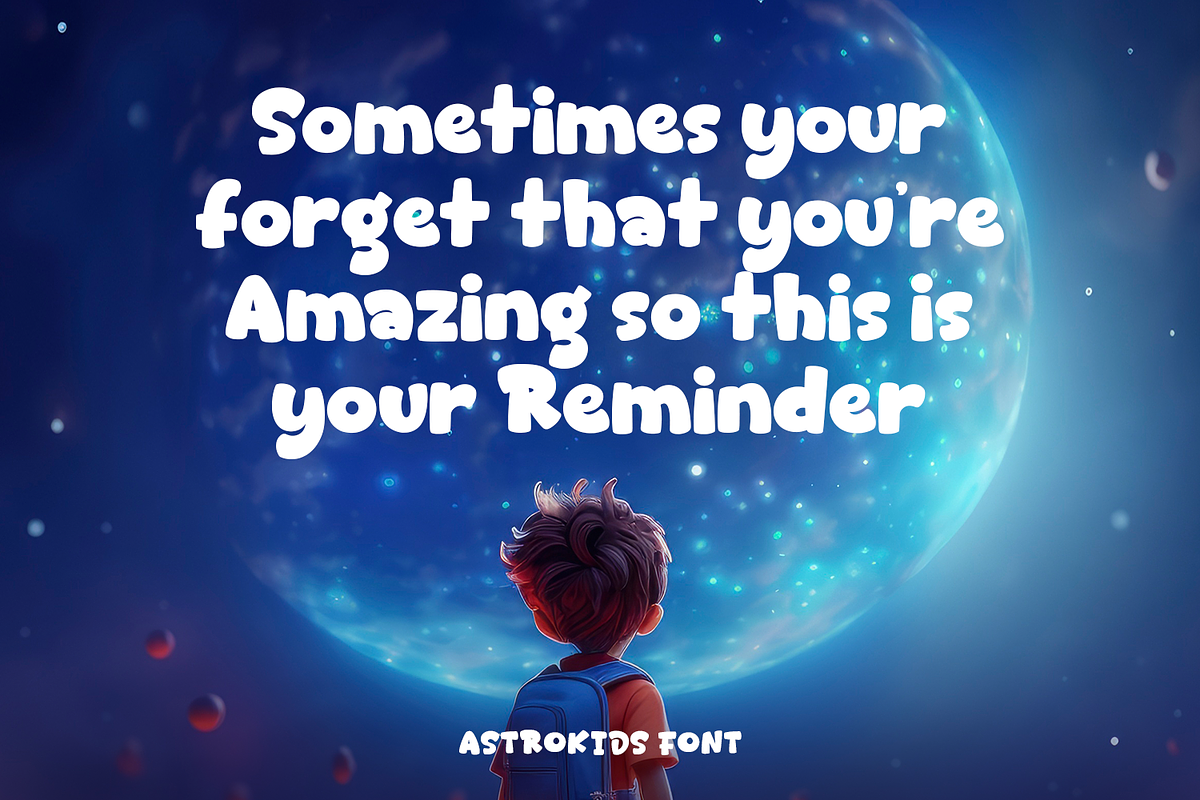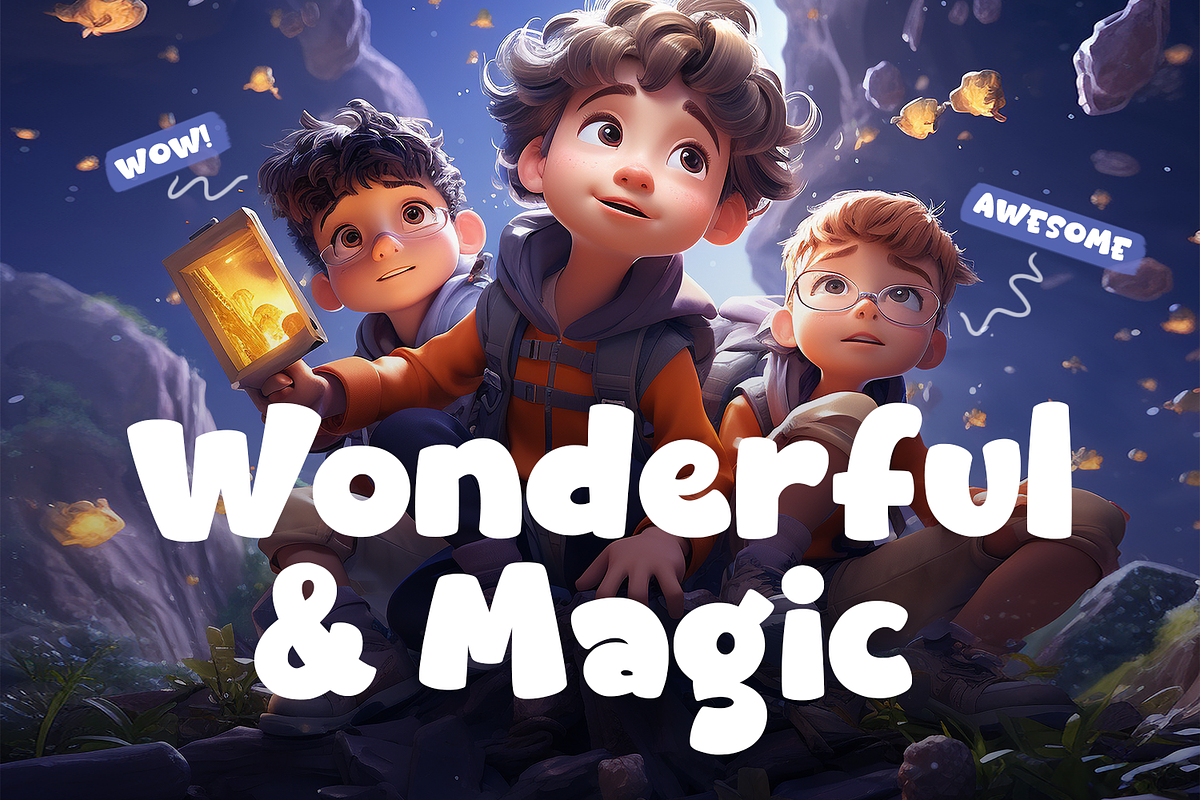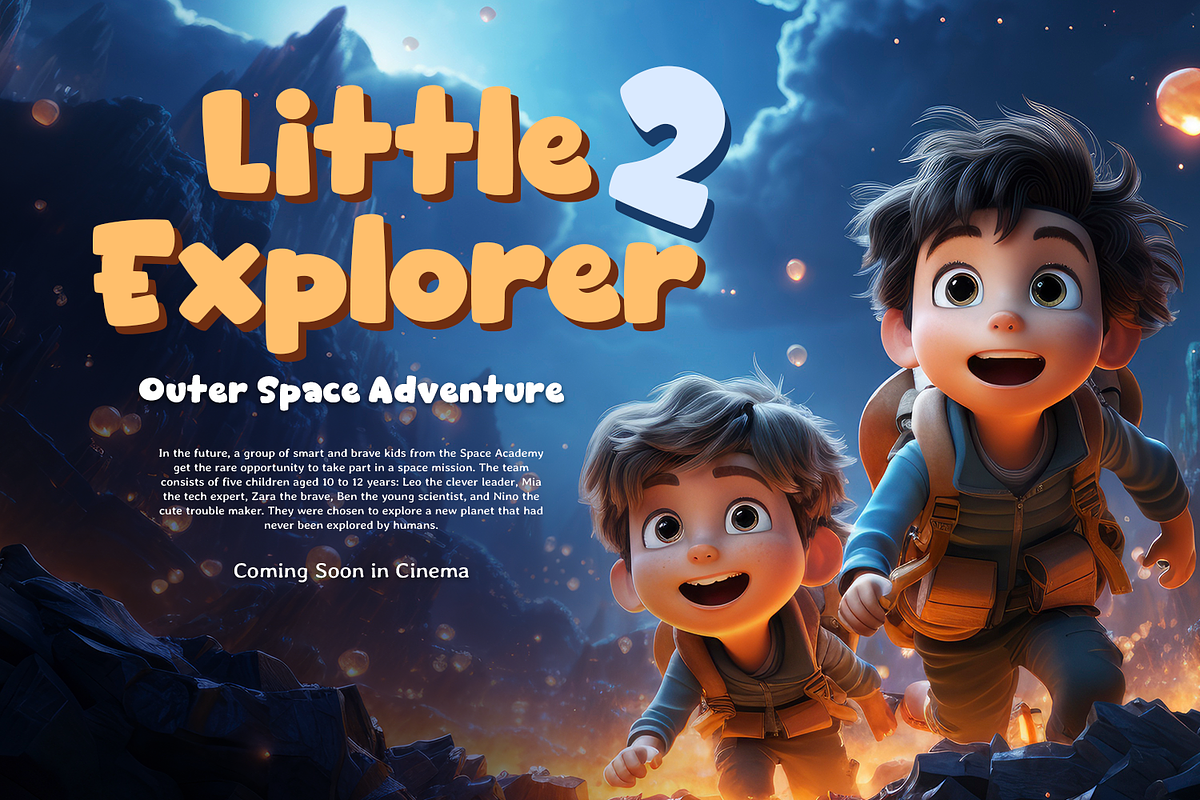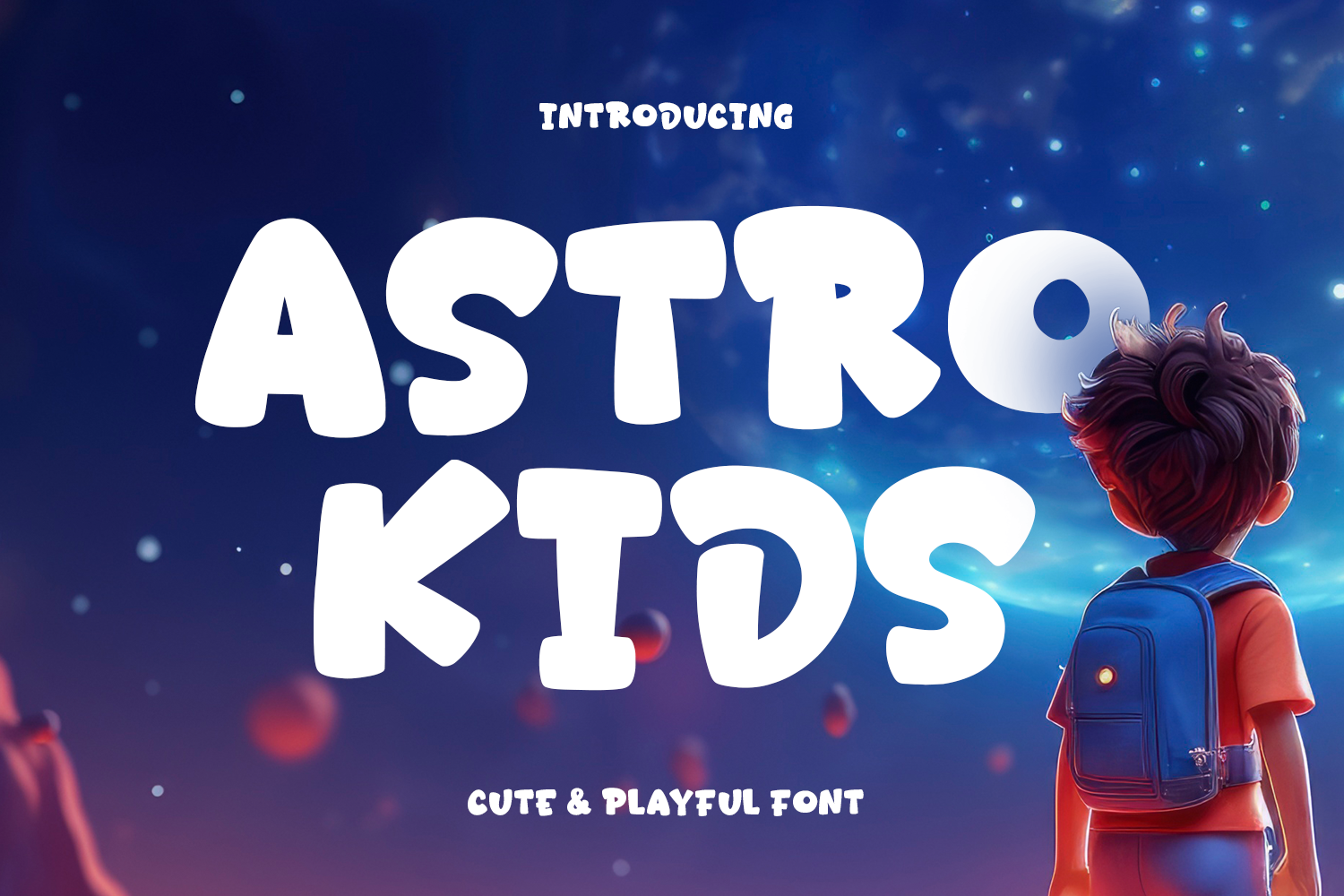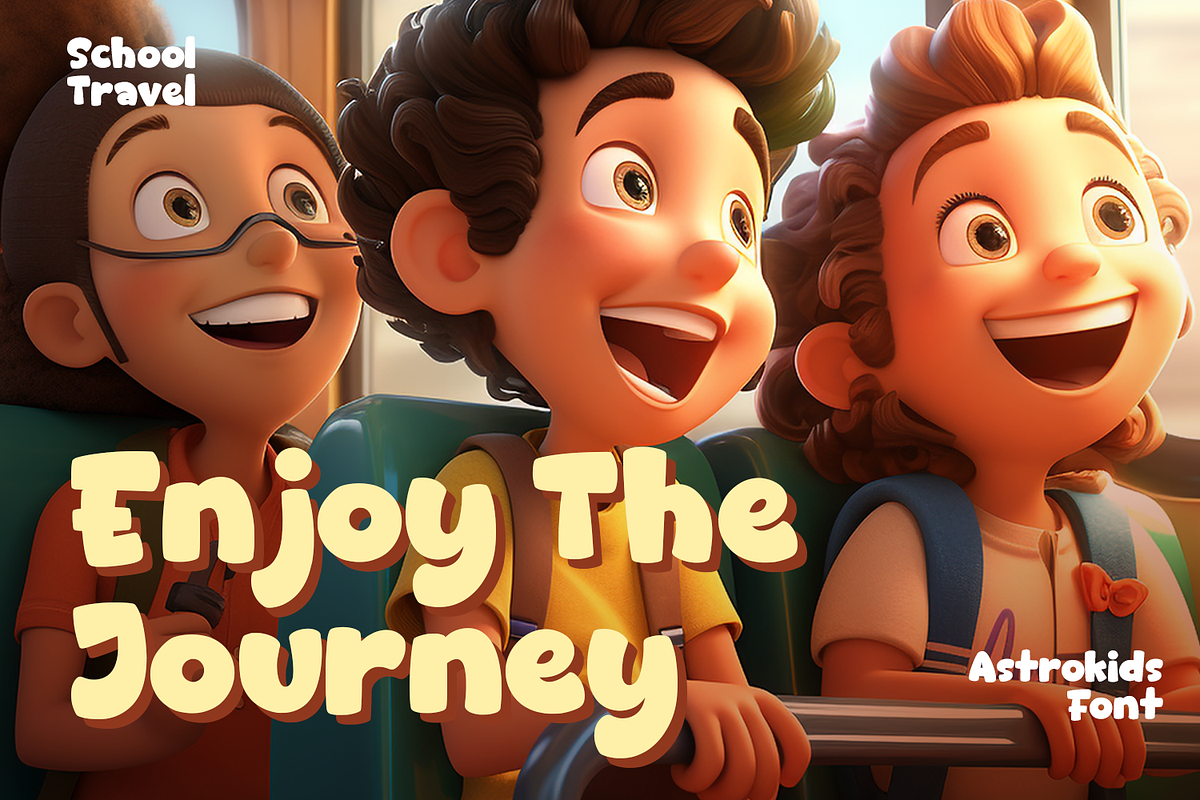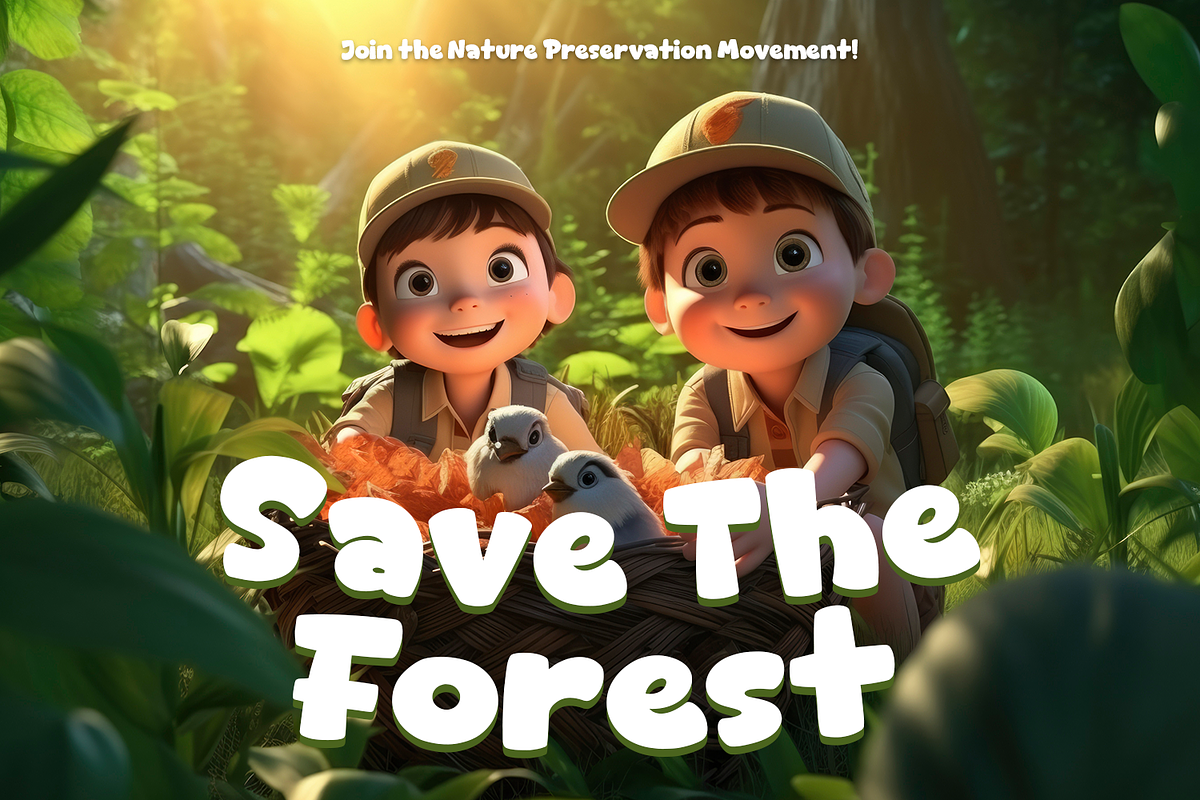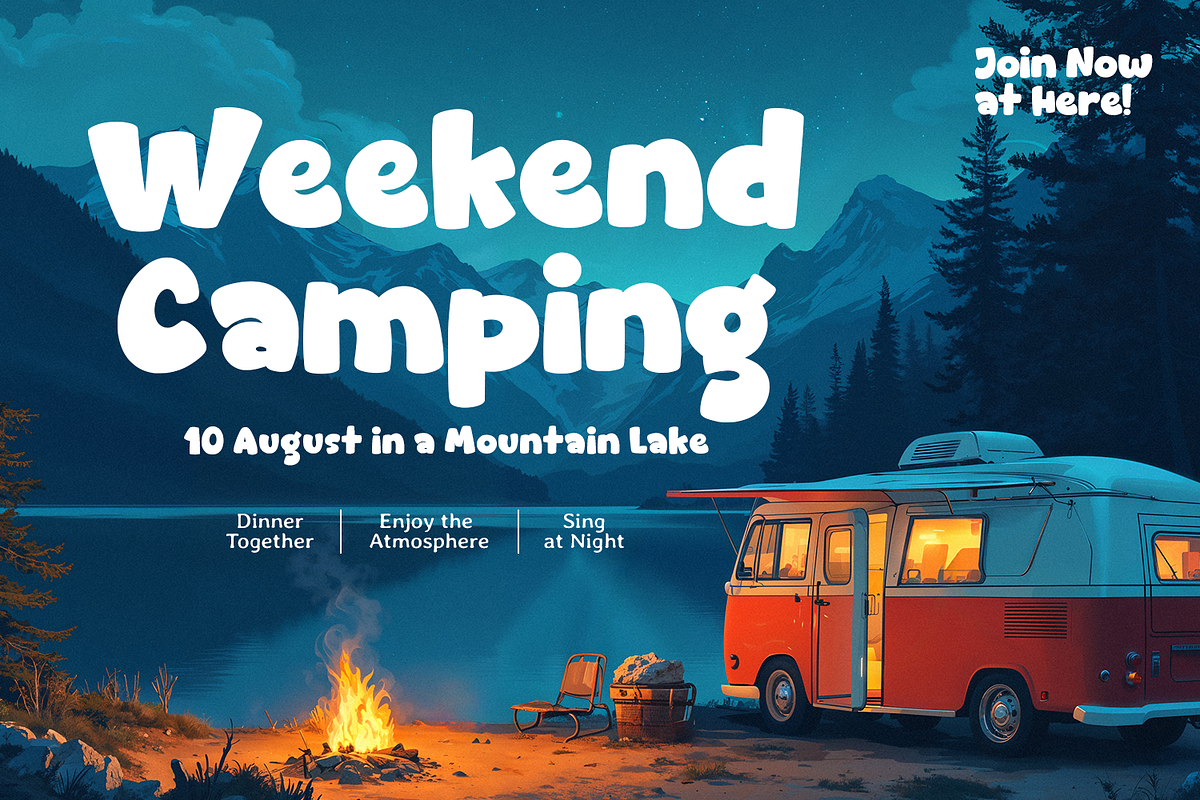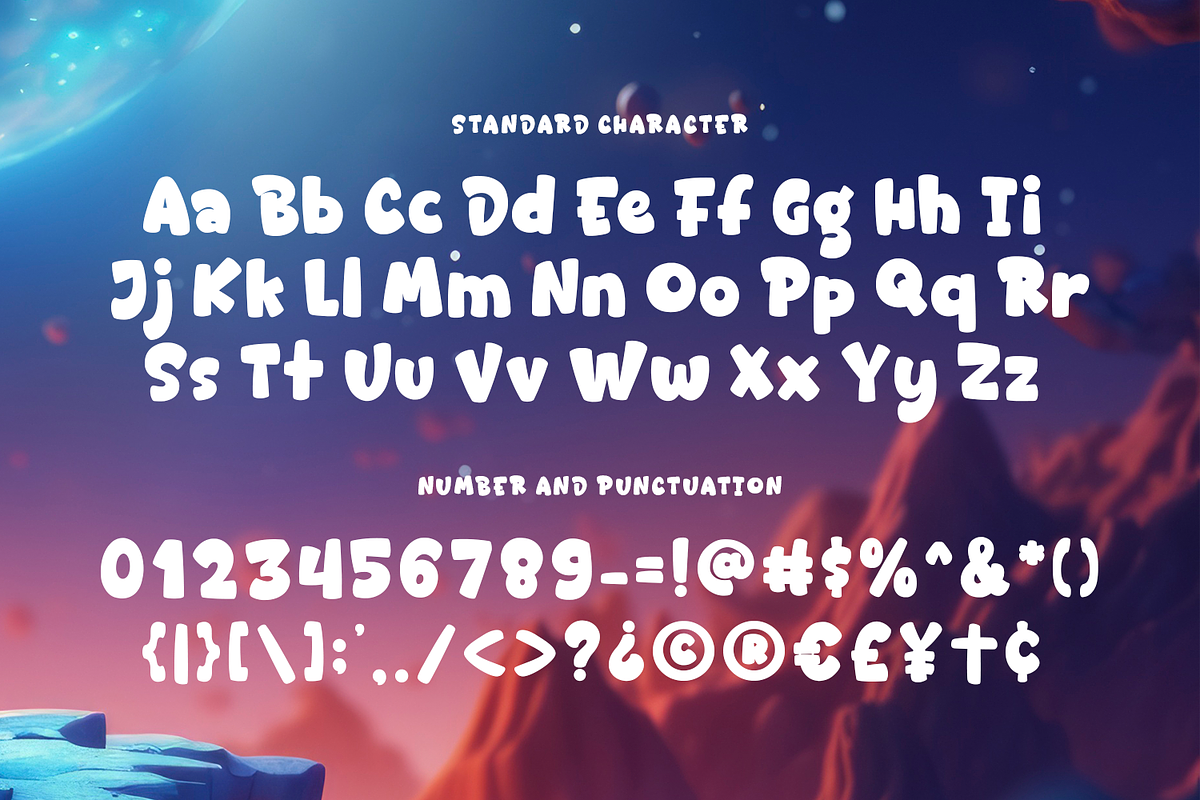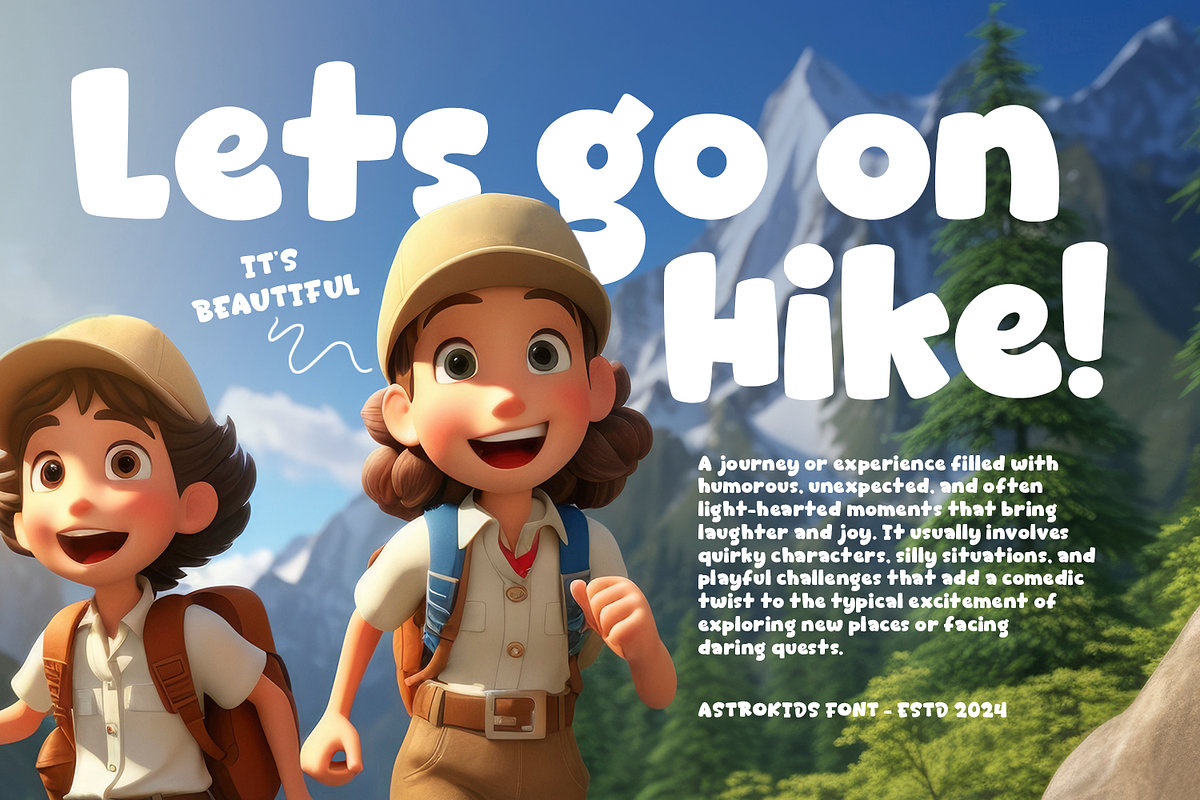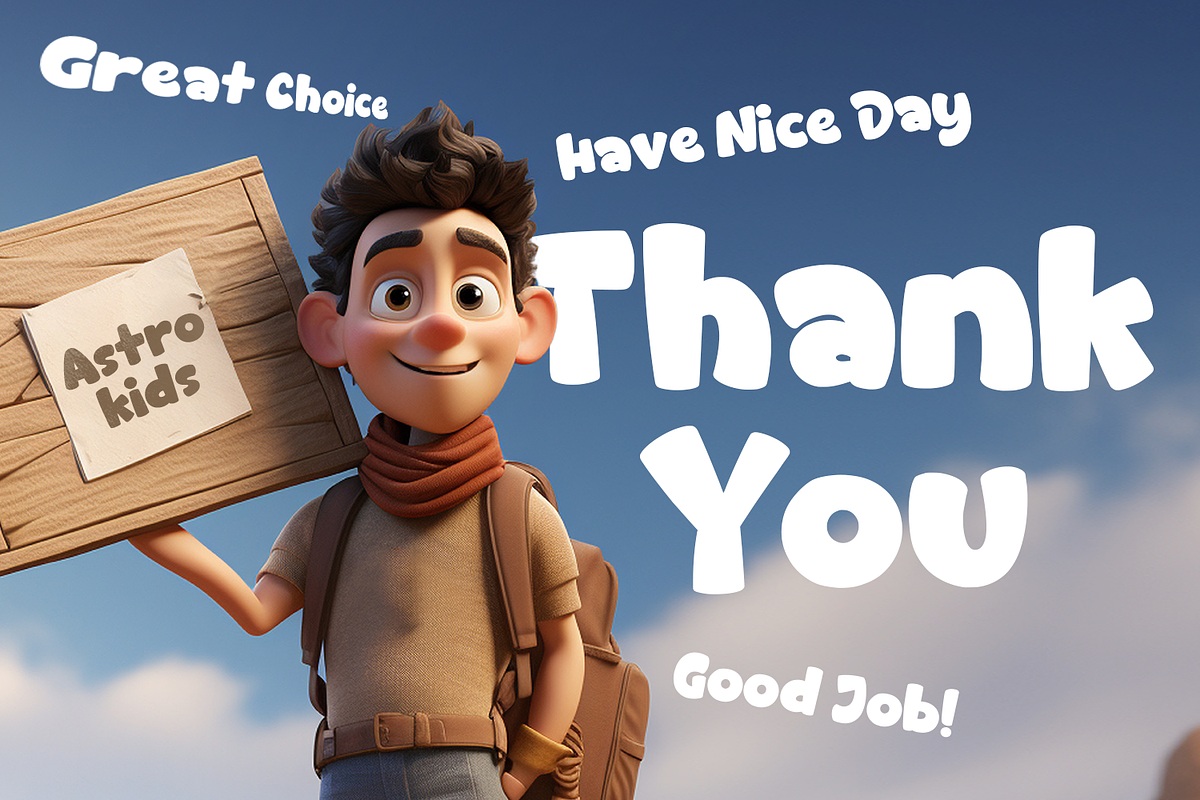
ASTROKIDS - Game Font
Astrokids is a fun, display, and cute font designed specifically with children’s themes in mind. This incredibly unique and interesting font brings an element of playfulness to any project with its bold, chunky letterforms. Whether you’re crafting an adventure-themed storybook or designing captivating posters for school events, Astrokids adds an undeniable charm and energy that will make your creations pop.
The thick, rounded characters of Astrokids are perfect for engaging young audiences, sparking their curiosity, and bringing a sense of wonder to any layout. Its versatility shines in various applications, from educational games and activity sheets to bright and exciting birthday invitations. With Astrokids, even simple designs become lively and attention-grabbing.
Astrokids suits a wide array of creative projects, such as tropical-themed book covers, online game interfaces, school supplies, posters, esports graphics, sports event banners, zoo advertisements, and social media content. It’s also a perfect fit for YouTube covers, thumbnails, and any digital space where a burst of youthful excitement is essential.